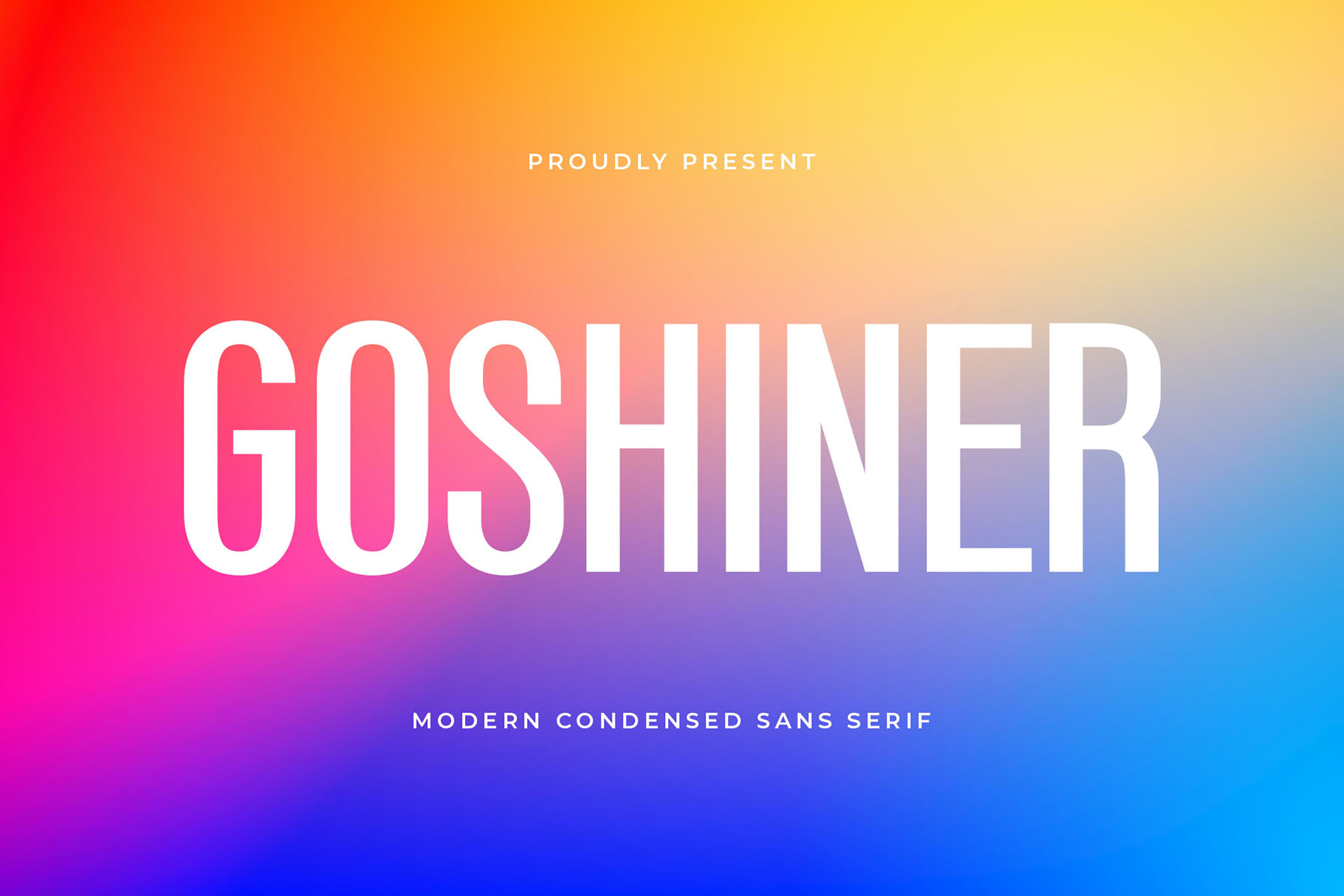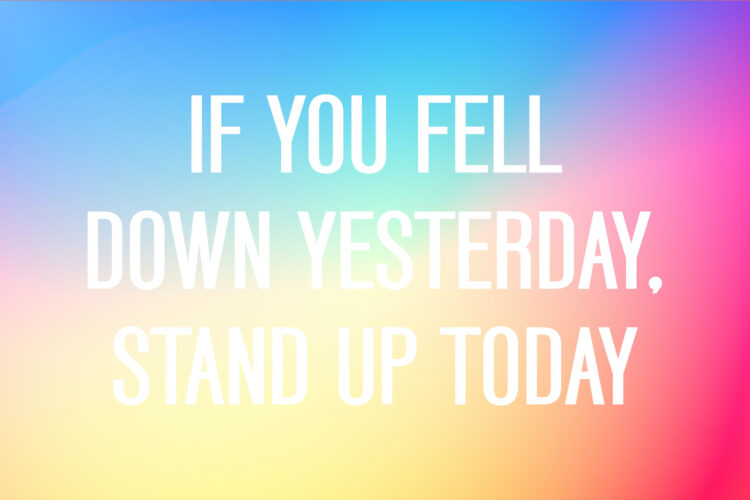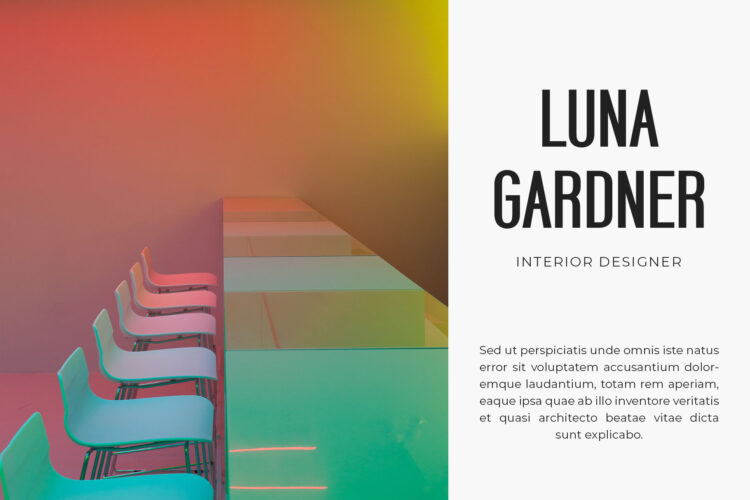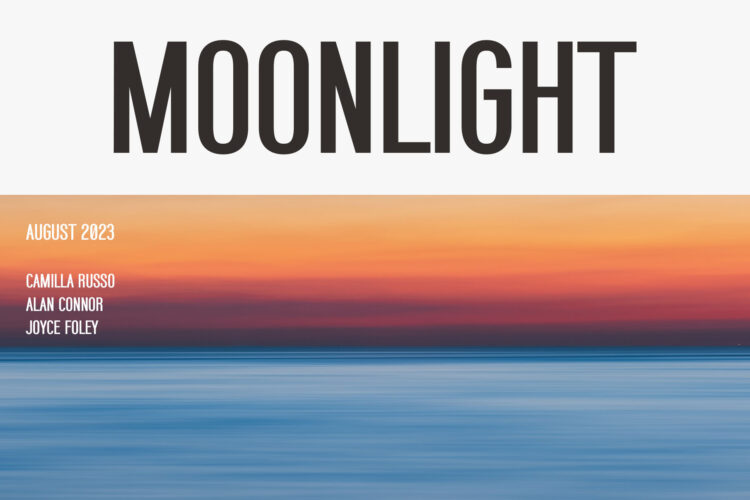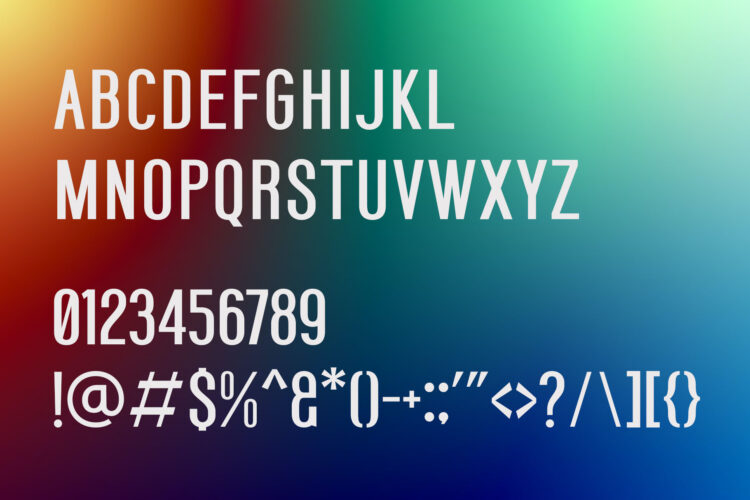
Introducing our new Goshiner, modern sans serif font with elegant style this is perfect for branding, logos, invitation, magazines, product packaging and more.
Goshiner – Modern Sans Serif Font